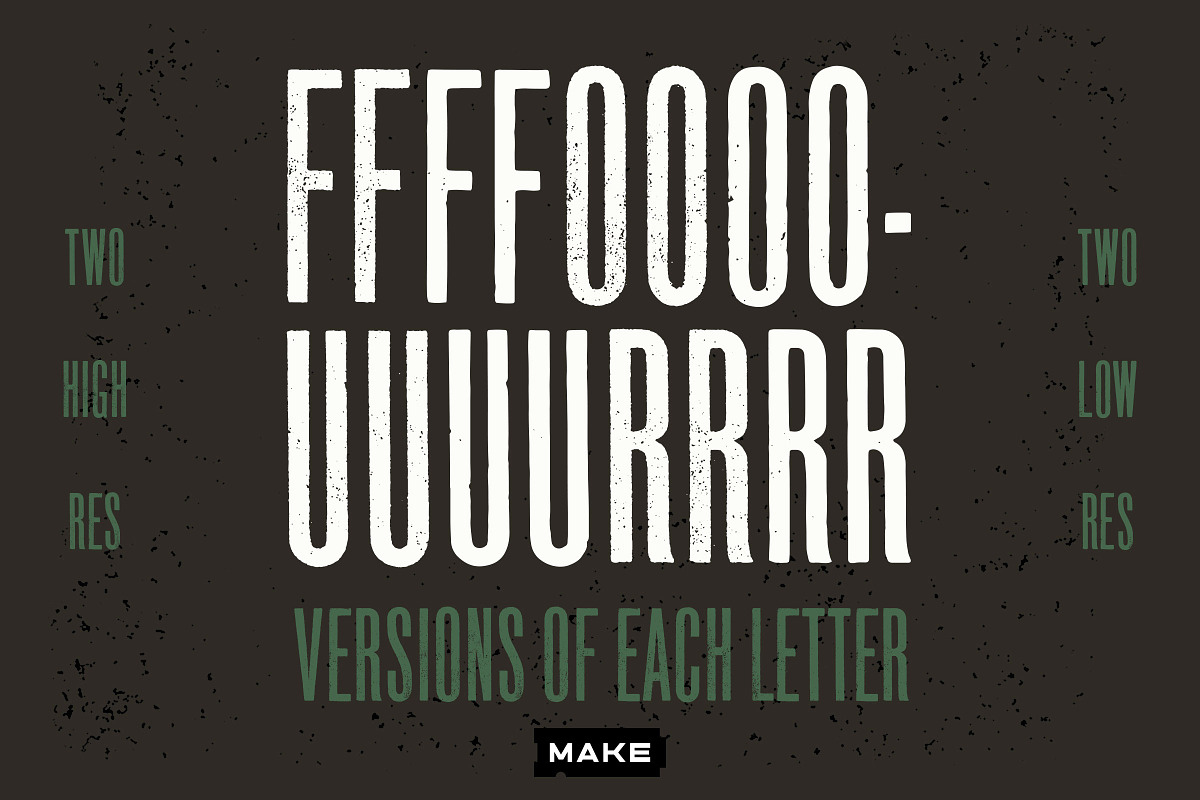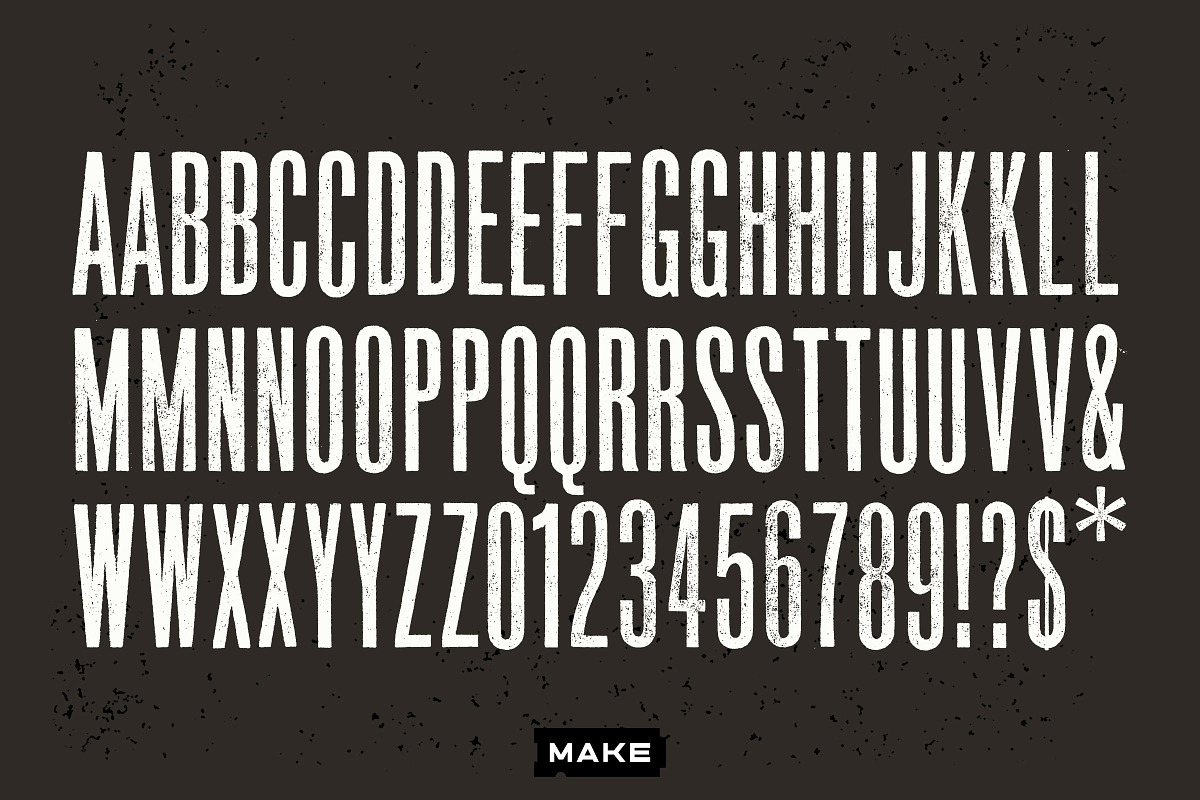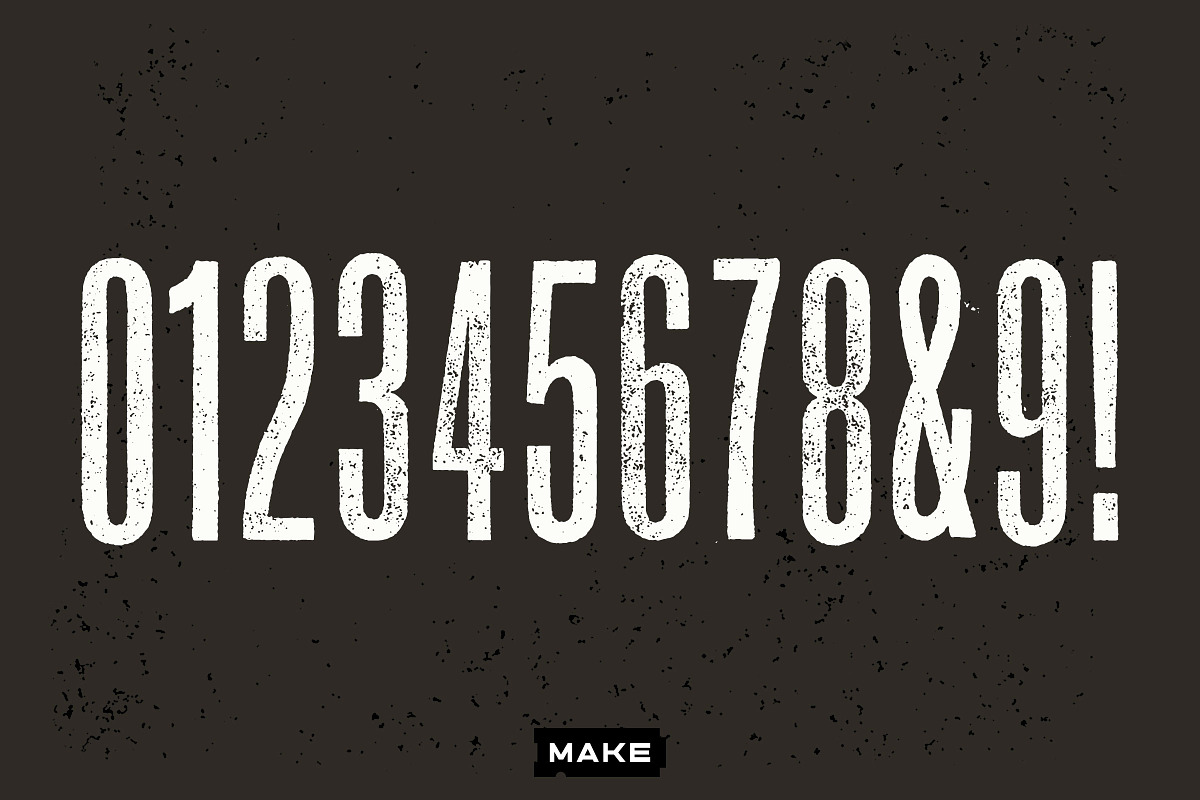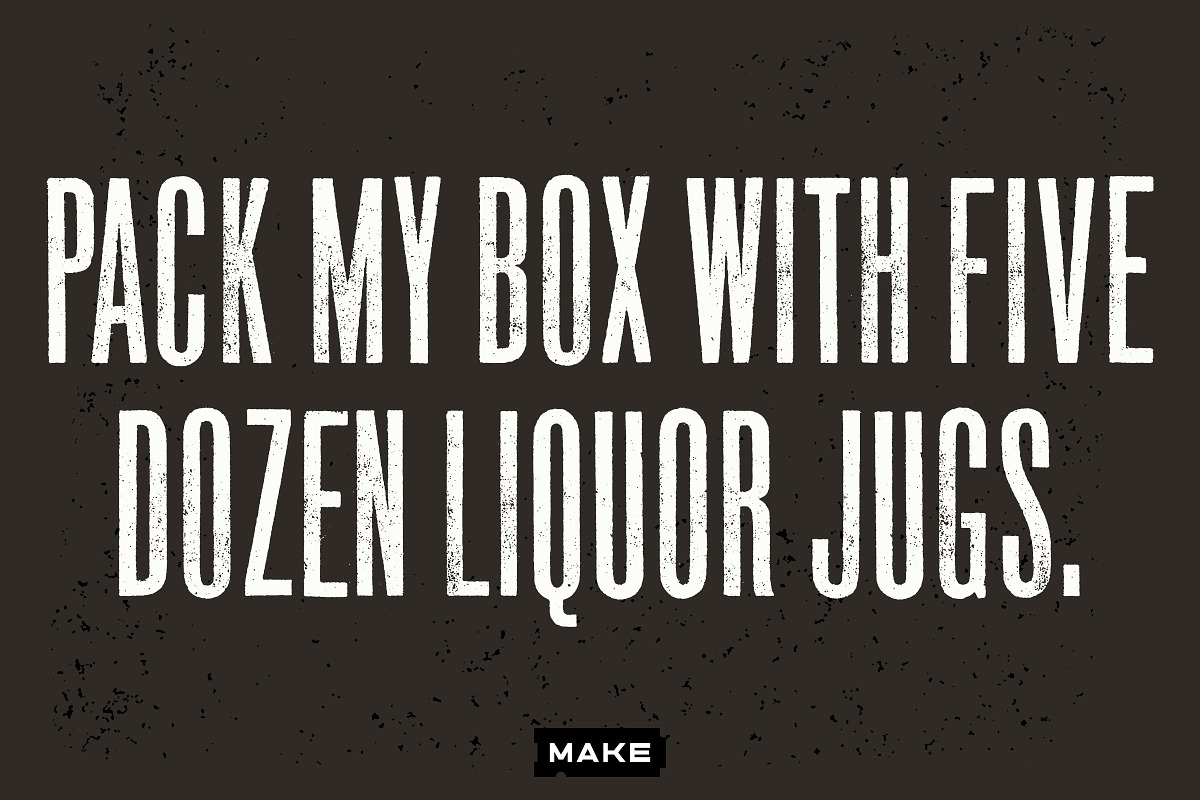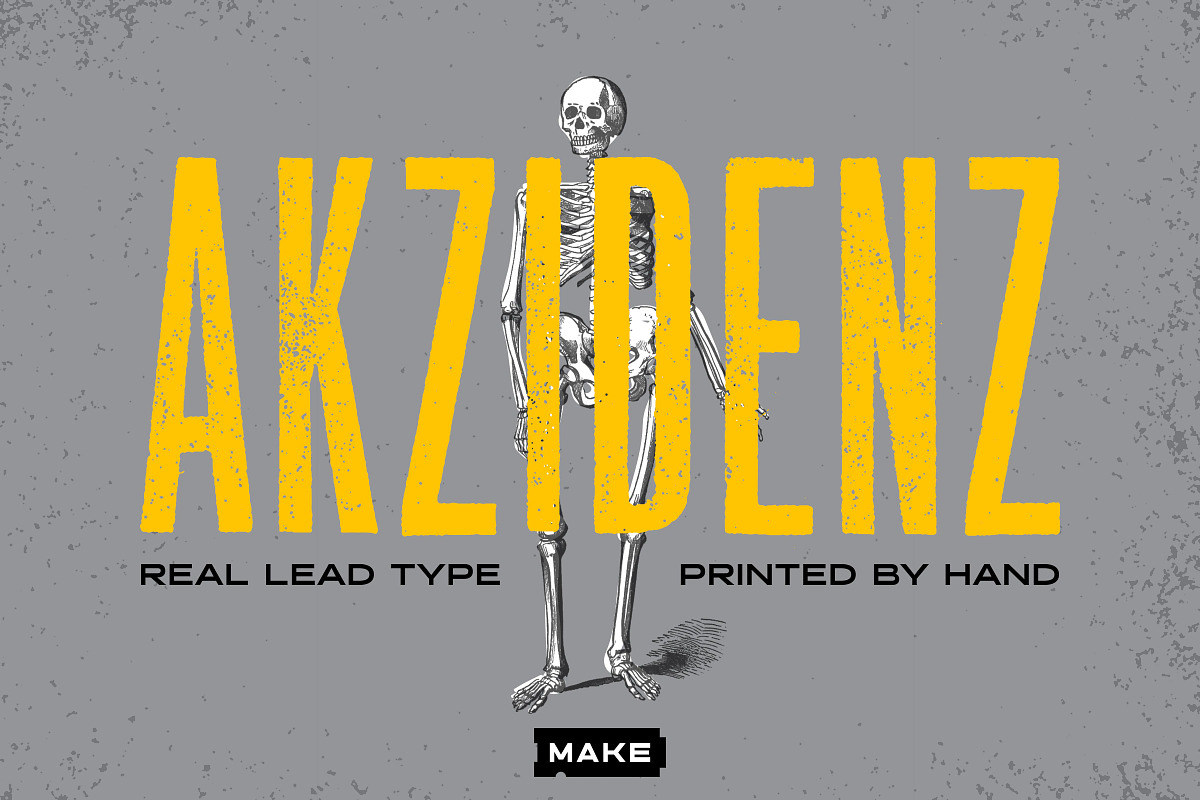
Letterpress Akzidenz
Real lead letterpress type, printed, scanned and turned into a digital font.
HM Akzidenz is a dusty, decades-old type found in a type drawer labelled “48 pt ultra condensed.” I pulled a single print—black ink on off-white paper—on my flatbed proofing press. This test print was scanned at 1200 dpi (Display) and then again at 300 dpi (Regular) to make a display face with tons of character as well as a simpler face for use at smaller sizes.
Two faces included: Display & Regular Full upper case letter set with two versions of most letters; limited character set.